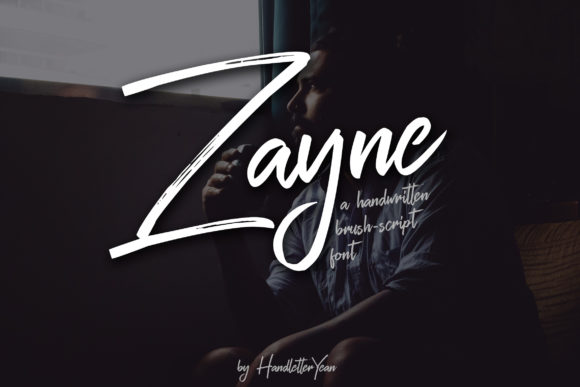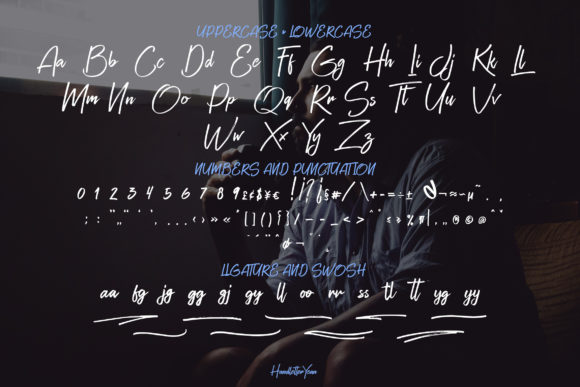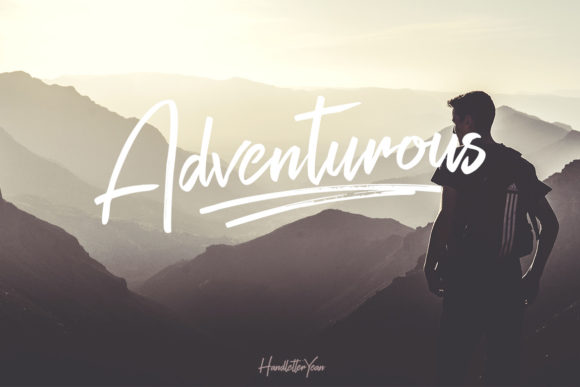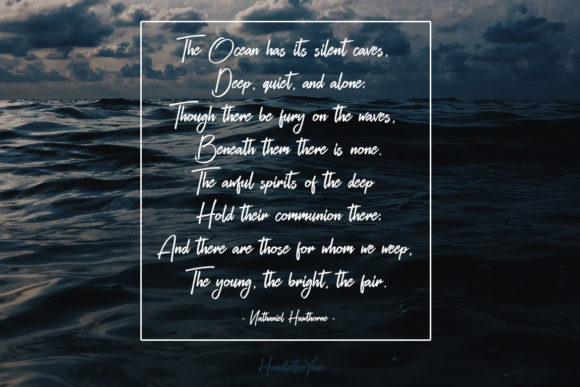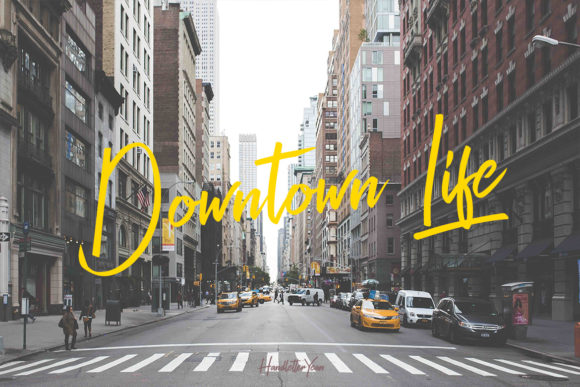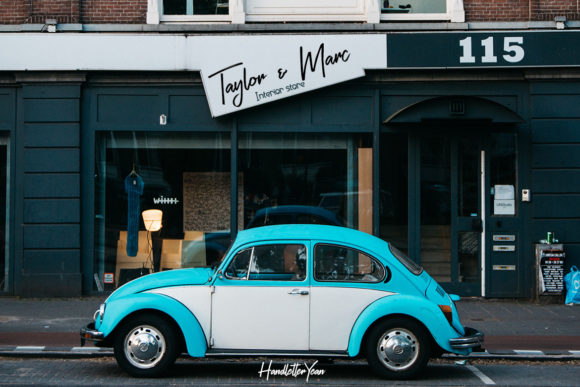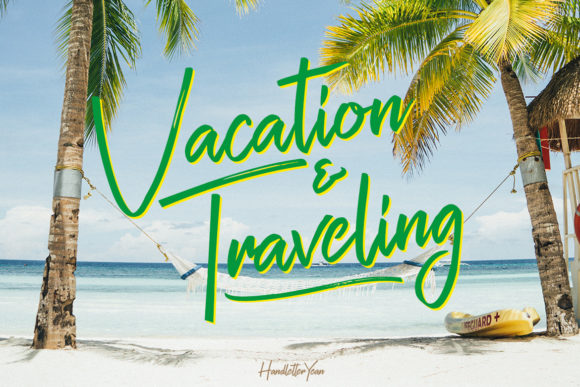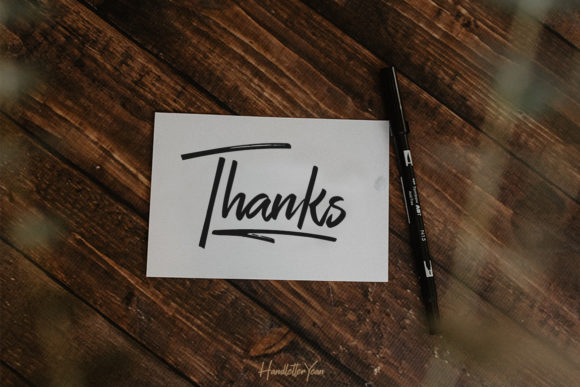
Zayne Font
About Zayne Font
Zayne is a fresh, urban and unique handwritten script font that includes ligatures and swashes. With its funky, elegant, and handmade feel, it will add uniqueness to your designs.